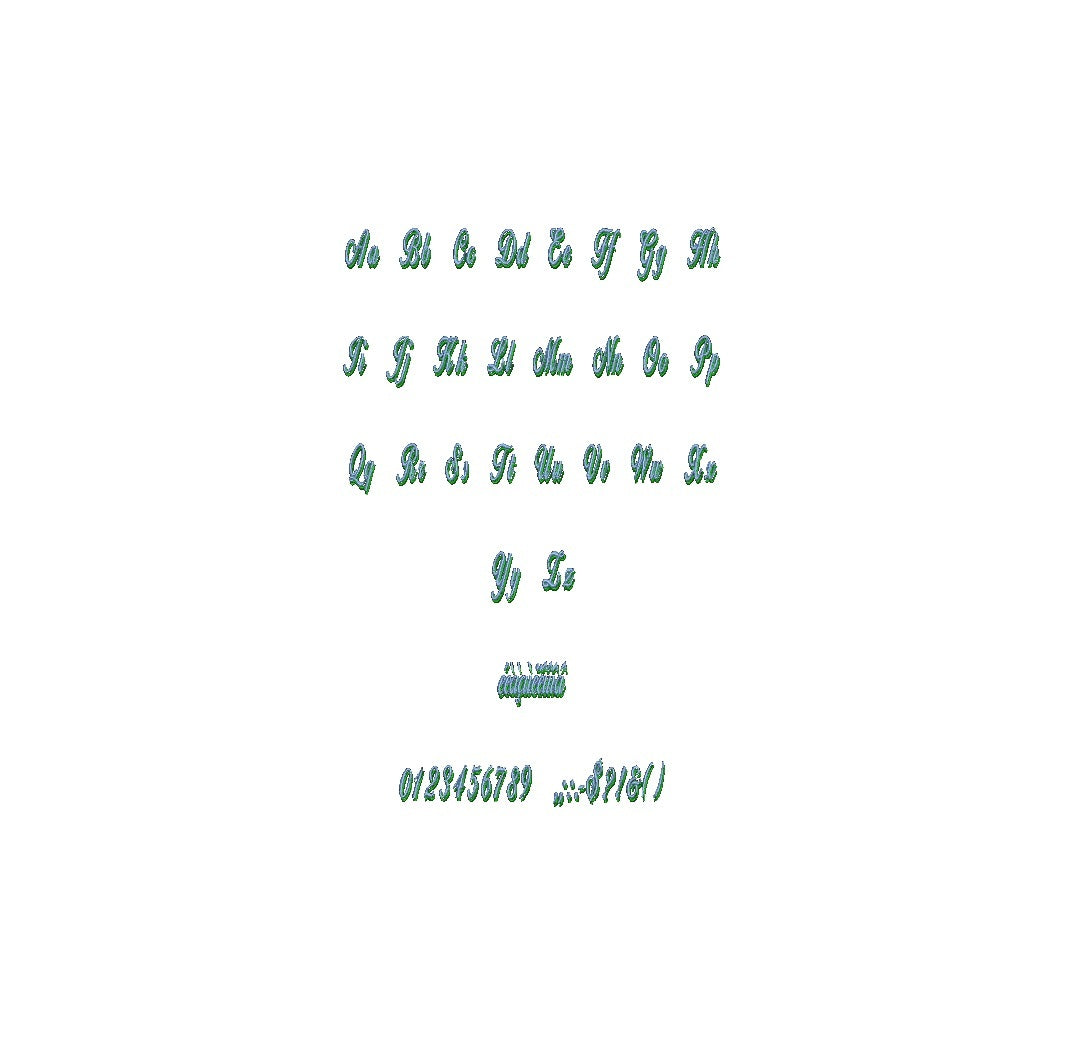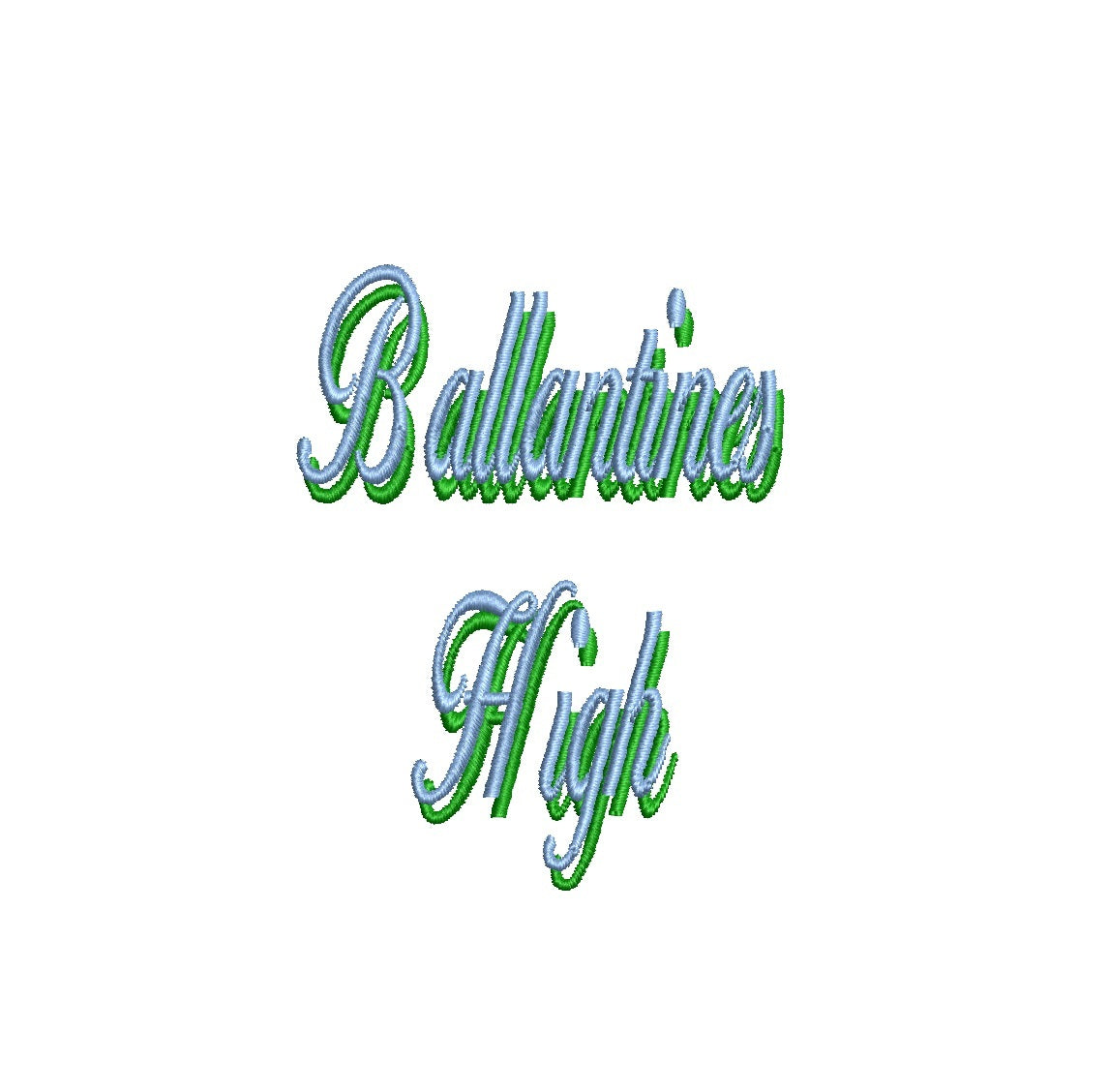
Ballantines High Shadow ESA font
Experience the elegance of Ballantines High Shadow ESA font, now seamlessly compatible with Wilcom Studio e4.5.6 and Hatch 3 versions and up. Elevate your designs with this sophisticated typeface that effortlessly combines timeless style and modern appeal. Its intricate shadows and impeccable lines capture attention, ensuring each creation stands out. Achieve flawless results and streamline your design process using this font with industry-leading software. Enhance your projects with Ballantines High Shadow ESA font's compatibility and craft designs that make a lasting impact. Step into the future of design with this essential font. Elevate your work today!